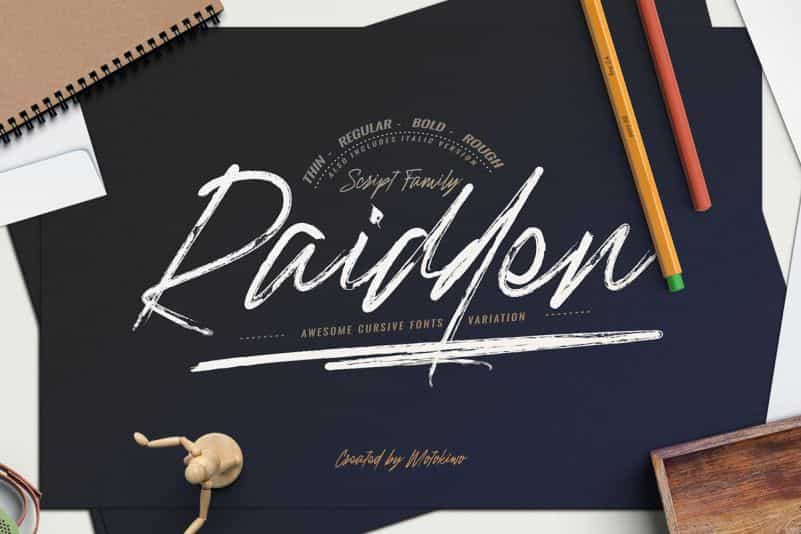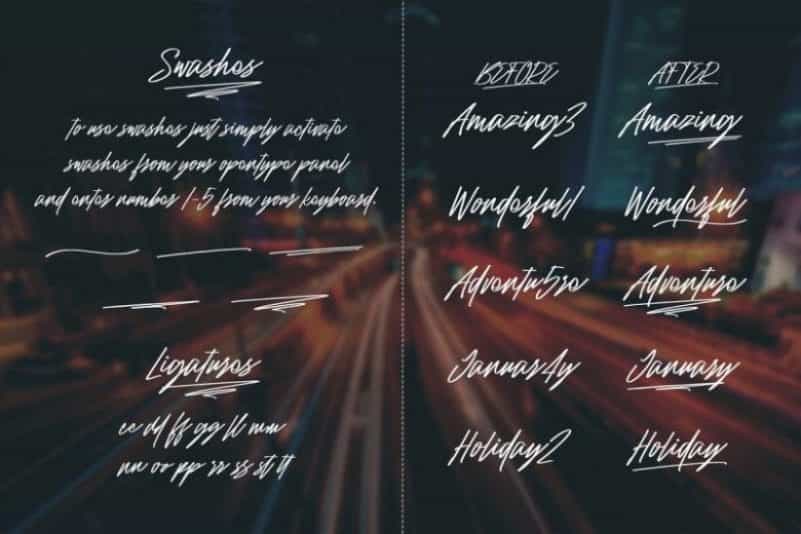
Discover Raidden Script Font Family, part of the Brush Calligraphy collection—a versatile and unique font perfect for adding a personal touch to your projects. Download it for free and enjoy crafting designs with style, from invitations to social media posts. This font is available exclusively for personal use, giving you the freedom to create without limits. Unlock your creativity with Raidden Script Font Family today!
Meet the Raidden Script Font Family! Motokiwo is a designer who has developed and shared it. It is a script font family with three weight clean strokes and also a rough version.